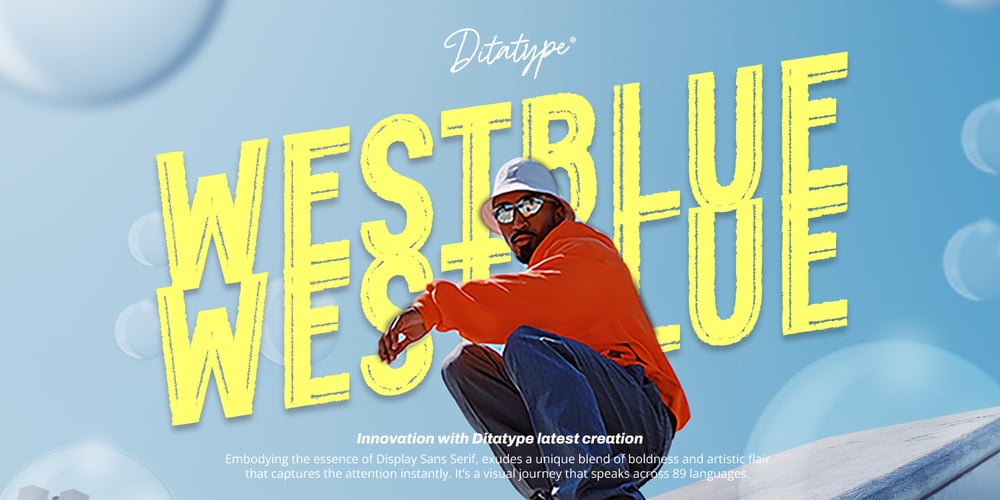
Westblue
Westblue font
Westblue Font Family was designed by Donis Miftahudin and published by Ditatype. Westblue contains 1 styles and family package options. Westblue is a captivating sans-serif display font. Crafted in bold style and intricate brushwork, this font is a versatile choice for designers seeking a perfect combination of impact and creativity.The characters in Westblue command attention with their substantial size and clean, sans-serif lines. What sets this font apart is the meticulously added brushed details, which bring an organic and handcrafted touch to each letter. These details create a sense of dynamism, making Westblue ideal for projects that demand both modernity and a hint of artistic flair. In addition, enjoy the features here.Features: Multilingual Supports PUA Encoded Numerals and Punctuations Westblue fits in headlines, logos, posters, flyers, branding materials, greeting cards, print media, editorial layouts, and many more designs. Find out more ways to use this font by taking a look at the font preview.Thanks for purchasing our fonts. Hopefully, you have a great time using our font. Feel free to contact us anytime for further information or when you have trouble with the font. Thanks a lot and happy designing.